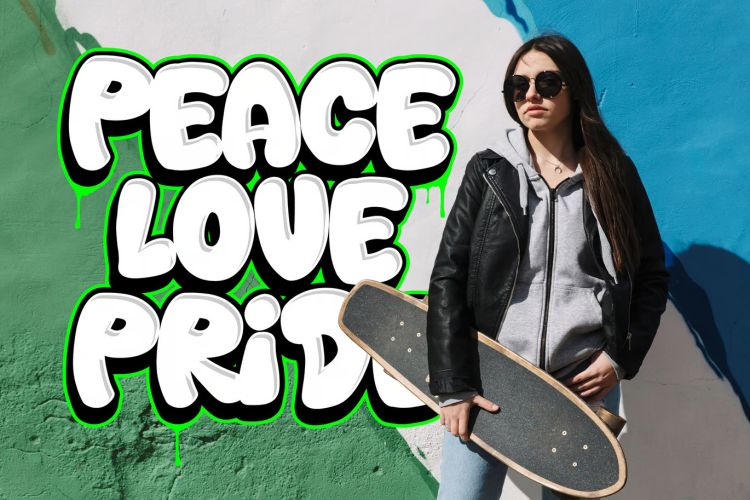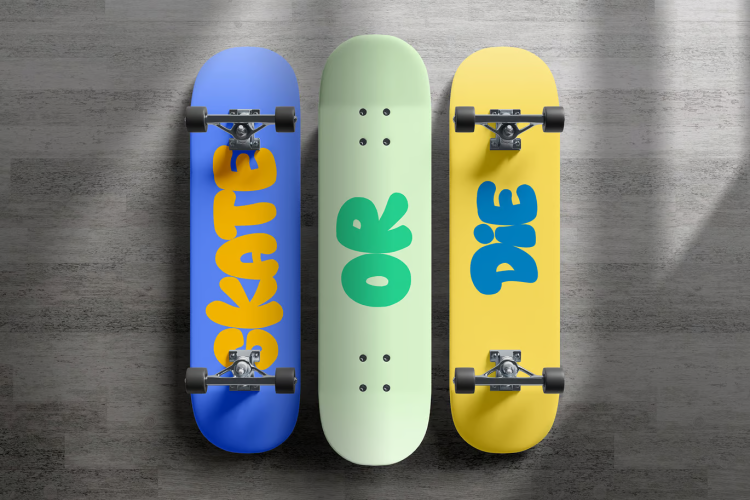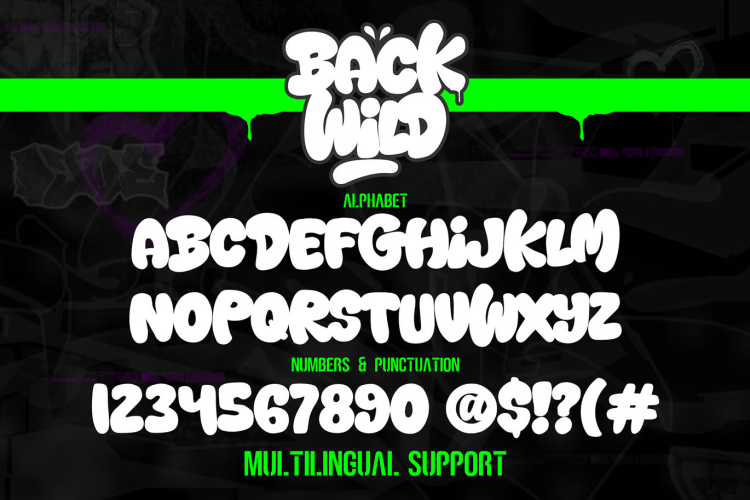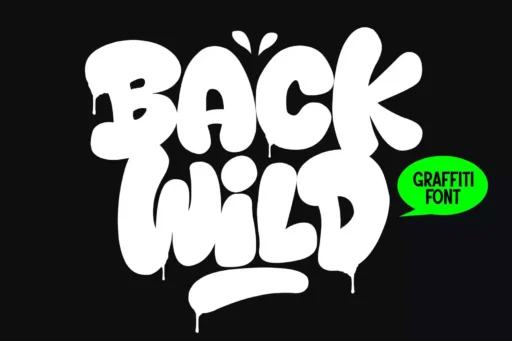
Back Wild Font
Back Wild is a bold graffiti font by figuree. This graffiti typeface is rather lively, with jutted swashes and additional curves – just like a bonus in any design. Its features the informal and rather chaotic structure associated with street art movement and the extra swashes are the dynamic elements of the design. No matter if it’s creating posters, street-style graphics, or any project that demands that loose, spirited energy – Back Wild turns your text into a spirited burst, adding a playful attitude to your design.
Where Back Wild Font works best
Back Wild Font is built for size: event posters, hero headlines and billboard-style layouts.
High contrast display type like Back Wild Font reads instantly in thumbnails and motion graphics.
What is Back Wild Font good for?
Back Wild Font is a Display Fonts typeface tagged Bold, Display, Display Fonts, Playful. It works well for headlines, logos, posters, social media graphics and branding projects that need a distinctive display fonts look.